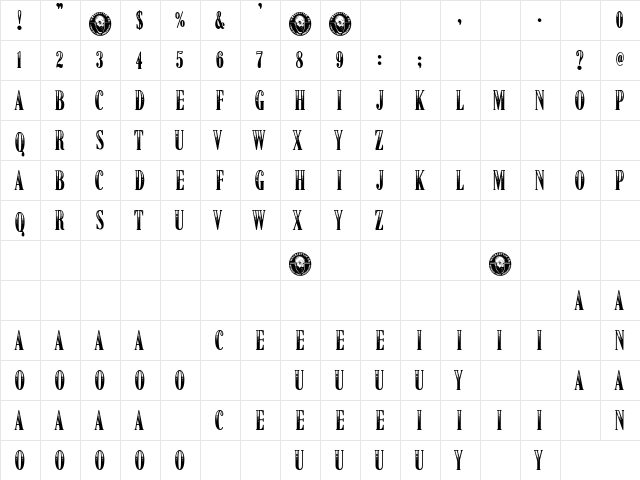
American Dreamer Regular
| Designer | Woodcutter Manero |
Design Context for American Dreamer Typeface
American Dreamer is a composed and adaptable typeface that performs quietly and consistently across a wide range of design contexts.